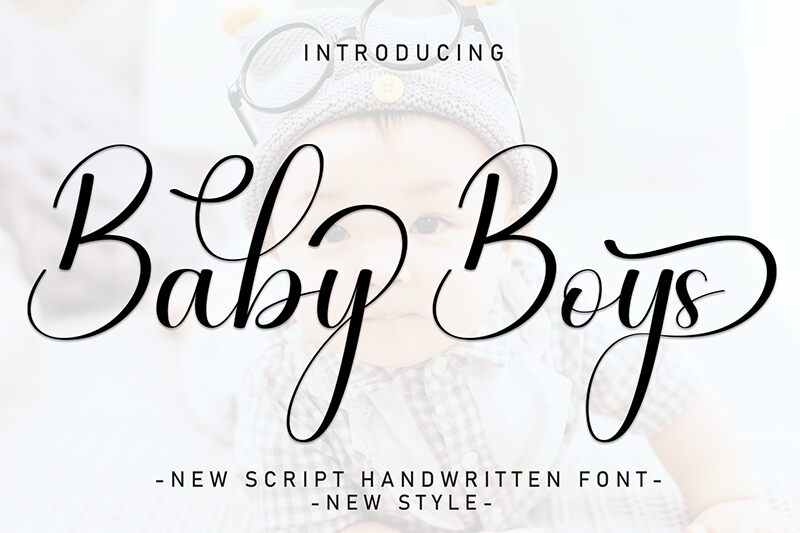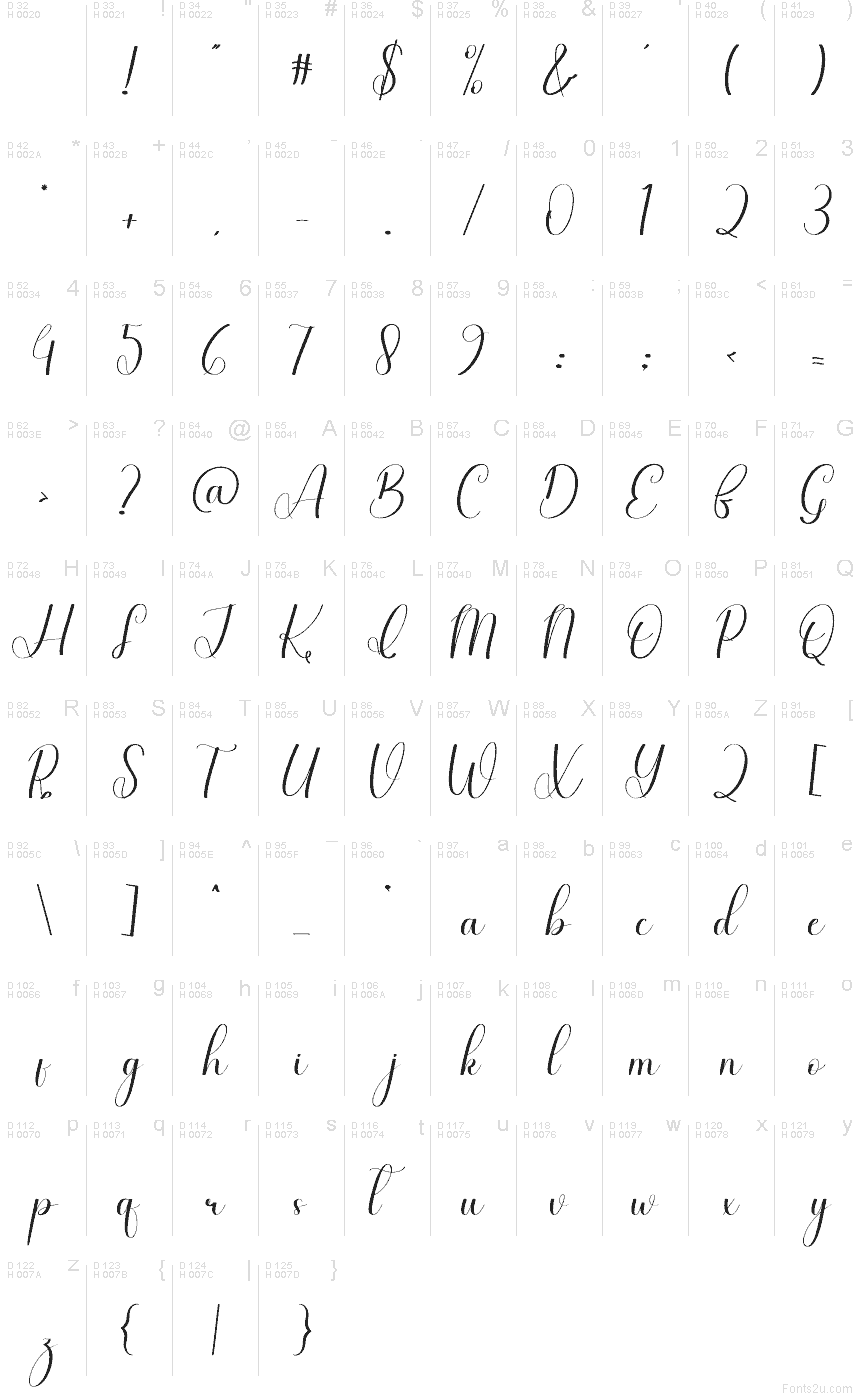
Baby Boys
Baby Boys font by Andi Moz is a free calligraphy typeface that wraps every word in soft, celebratory energy. Its long, sweeping strokes feel like they’re written with a fine-tipped brush, while the gentle slant and airy spacing keep it light and joyful rather than stuffy. The letters connect with an easy rhythm, creating flowing lines that look polished enough for print but still warm and handwritten.
Using Baby Boys, you can bring a tender, personal touch to baby shower invitations, birth announcements, nursery wall art, christening programs, gender reveal graphics, and keepsake cards. This free font shines when set large, letting the curves and loops really breathe; pair it with a clean sans serif for body text so the script remains the star.